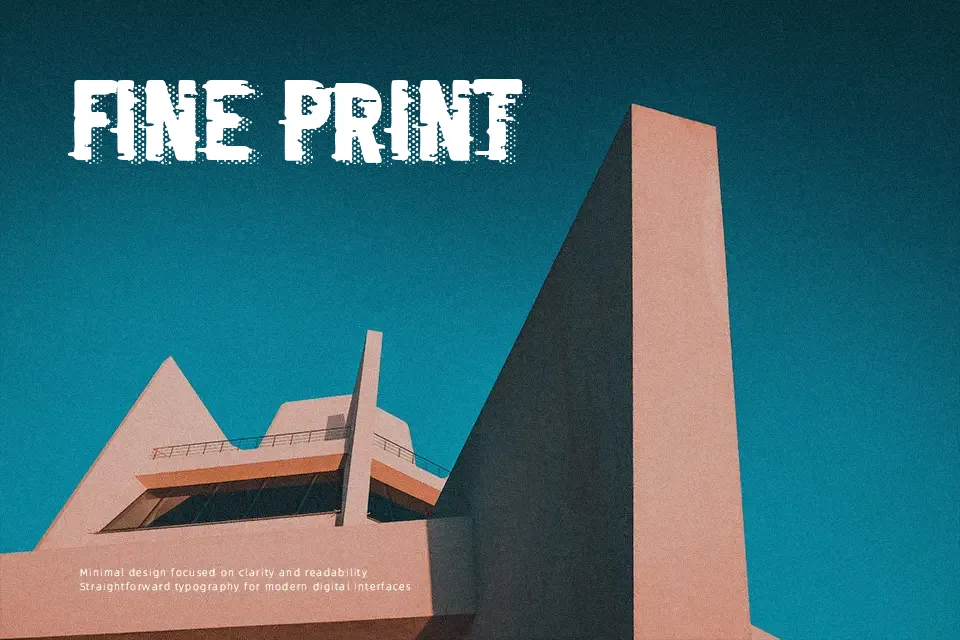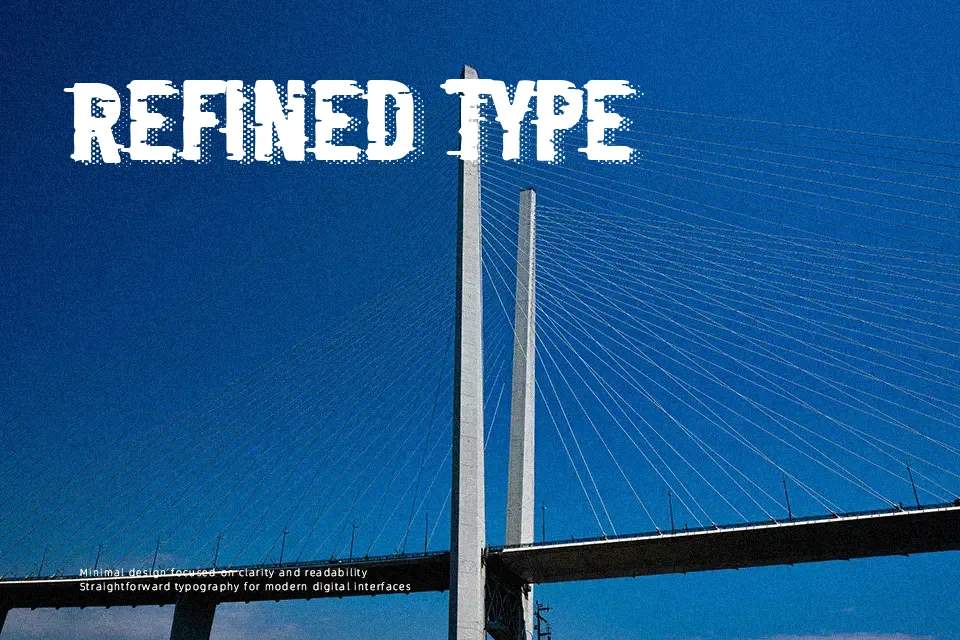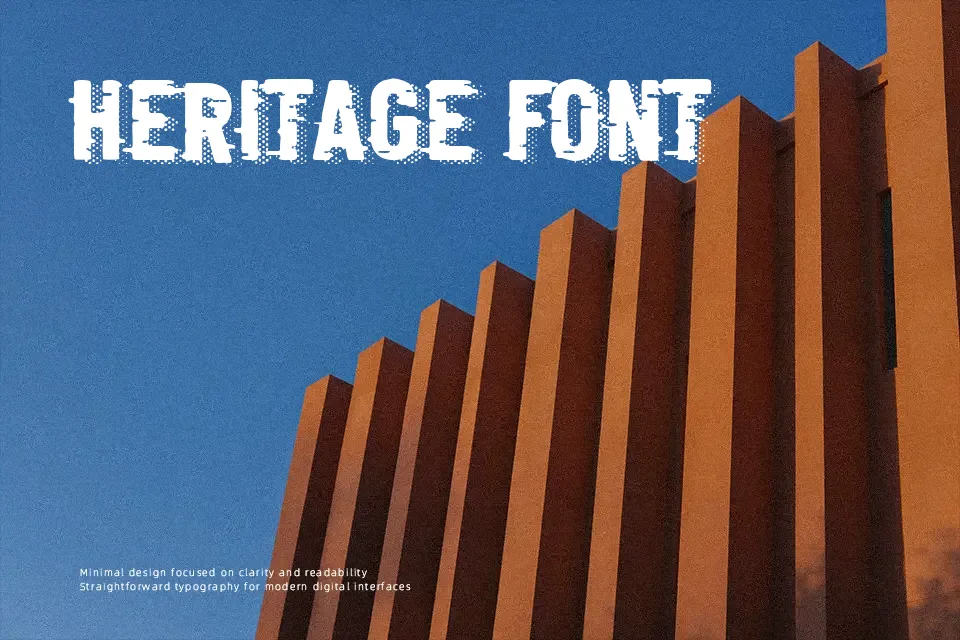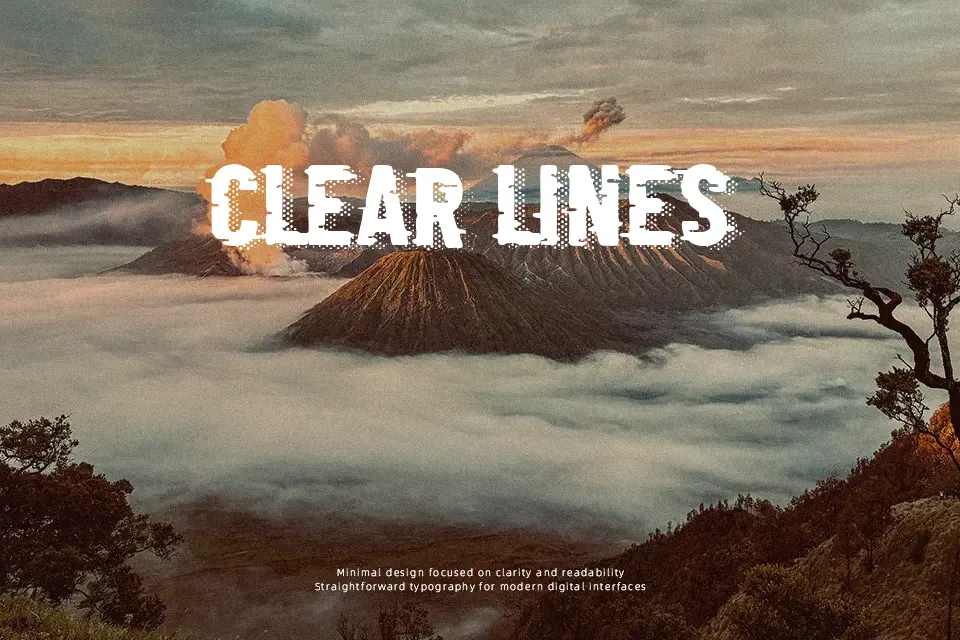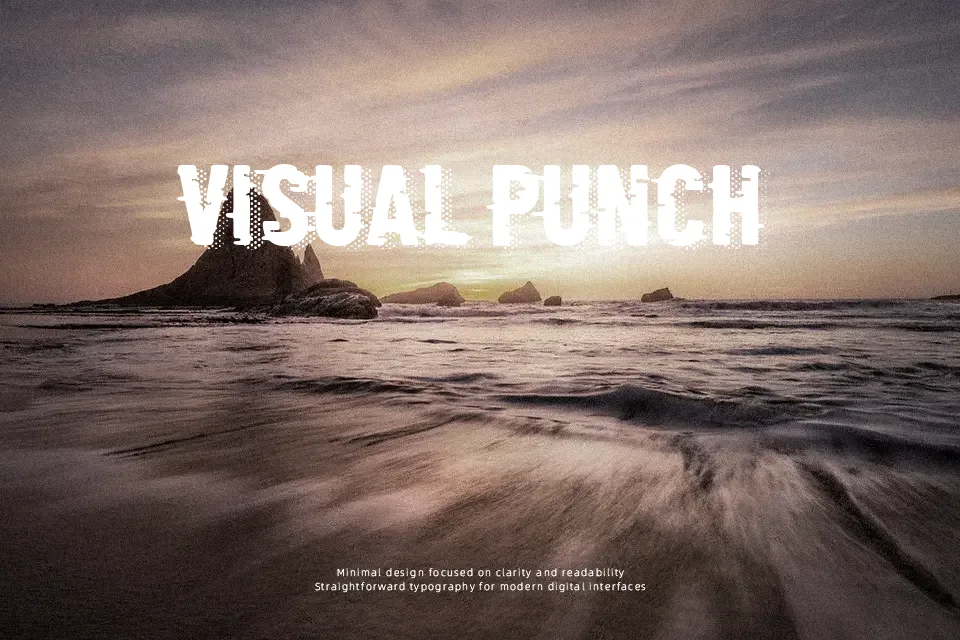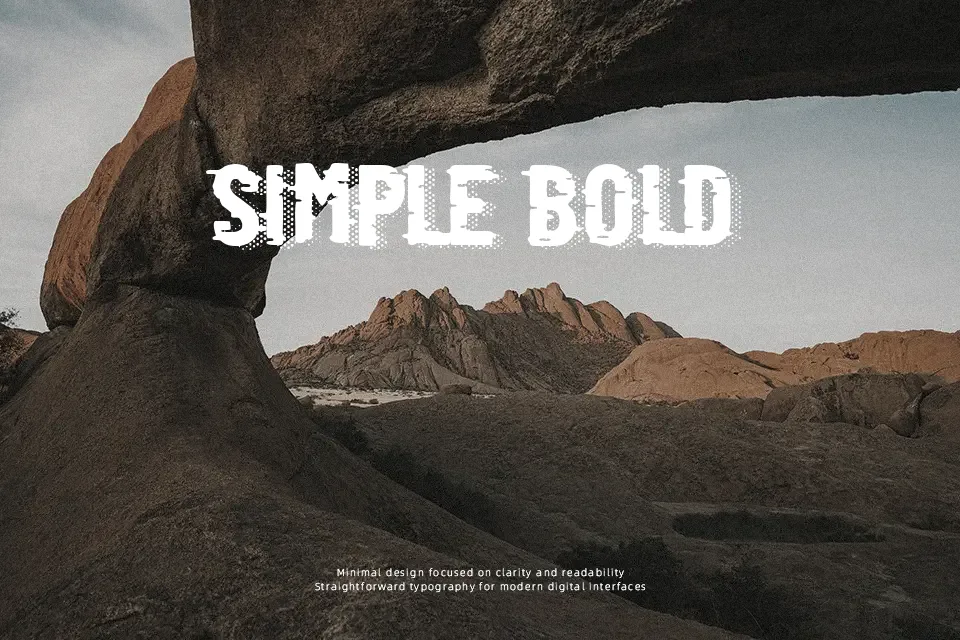
Retro Computer Font
Showcasing a rugged digital aesthetic, Retro Computer Font relies on blocky structures and jagged strokes to emulate vintage screen displays. The rigid proportions and heavy visual weight create a striking presence, capturing the essence of early computing with deliberate glitch-like distortion. Consistent character widths ensure a mechanical rhythm across headlines and large text blocks. The letterforms remain highly striking in large display text, but the distorted edges can quickly reduce readability at smaller point sizes. This pixel-inspired typeface performs exceptionally well in retro gaming interfaces, cyberpunk posters, and technology-focused branding. However, the intentional deterioration makes it highly unsuitable for dense body paragraphs or professional corporate documents where clarity is paramount.
retro gaming interfaces, cyberpunk event posters, technology branding, arcade merchandise
small interface labels, dense body paragraphs, corporate reports, spreadsheet data
Perfect for branding, gaming, and headline, with a grunge and decorative style.